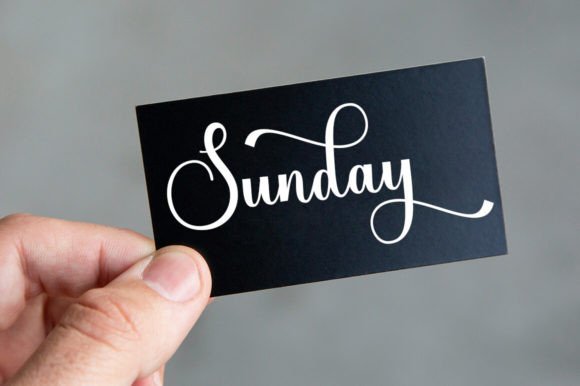
Signature Font
Welcome, Signature, a heartfelt and beautifully flowing cursive font which is entwined with an artisanal touch. Its delicate design brings a harmonious equilibrium to a diverse range of artistic pursuits. Signature effortlessly instills a delightful and amorous atmosphere, challenging the norms and propelling every design to the extraordinary.
It’s the optimal choice for creating unique brand identities and sophisticated logos, rendering an elite feel to wedding materials or intimate greeting cards. Signature effortlessly elevates fashion brochures and promotional campaigns to the realm of luxury and elegance, infusing them with an undertone of relaxed refinement. Transcend the realm of the ordinary with the charming understatement of the Signature font.